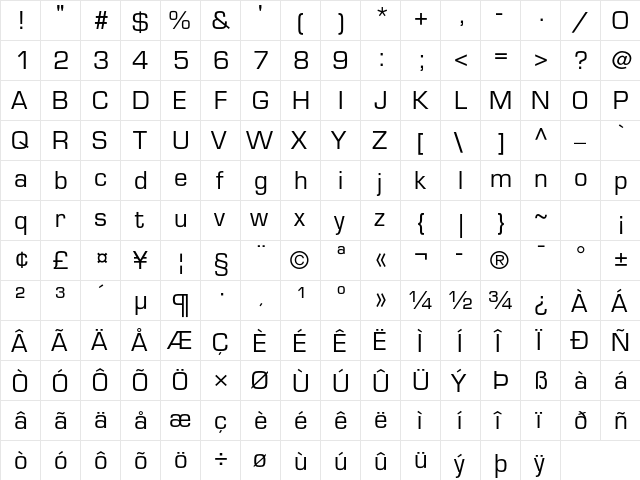
Eurostile LT Std Roman
| Foundry | Linotype GmbH |
| Designer | Aldo Novarese, A. Butti |
Design Context for Eurostile LT Std Typeface
Eurostile LT Std takes a measured approach to typography — its balanced proportions and neutral character make it a reliable workhorse for both digital and print work. Its slender proportions lend an understated elegance to any composition.